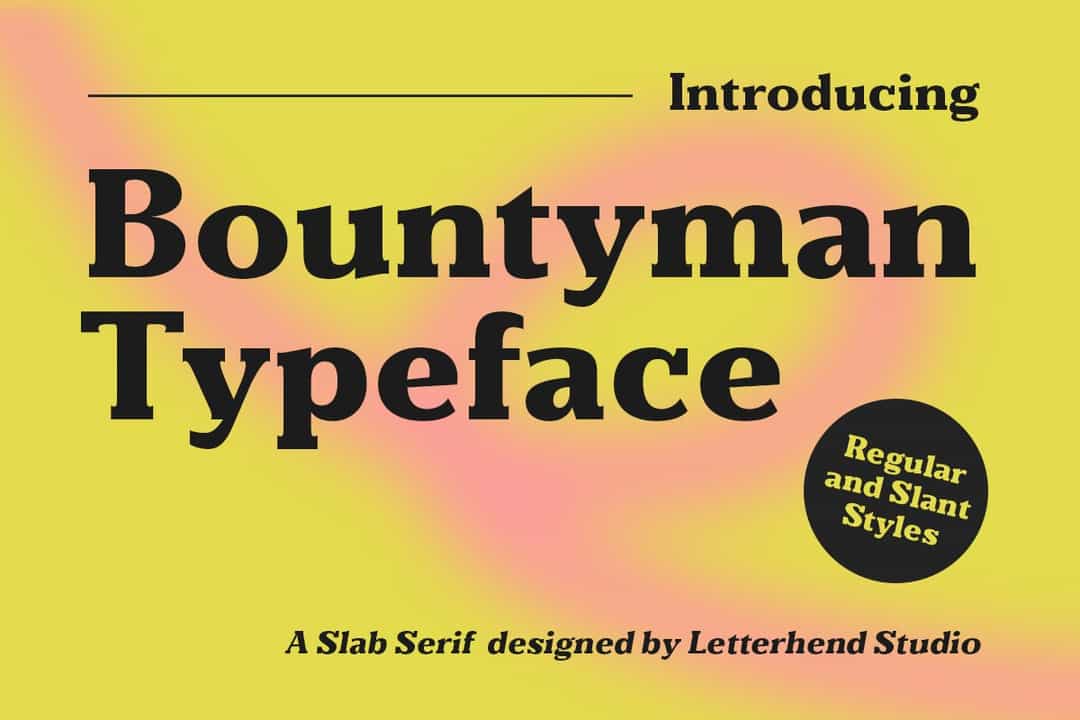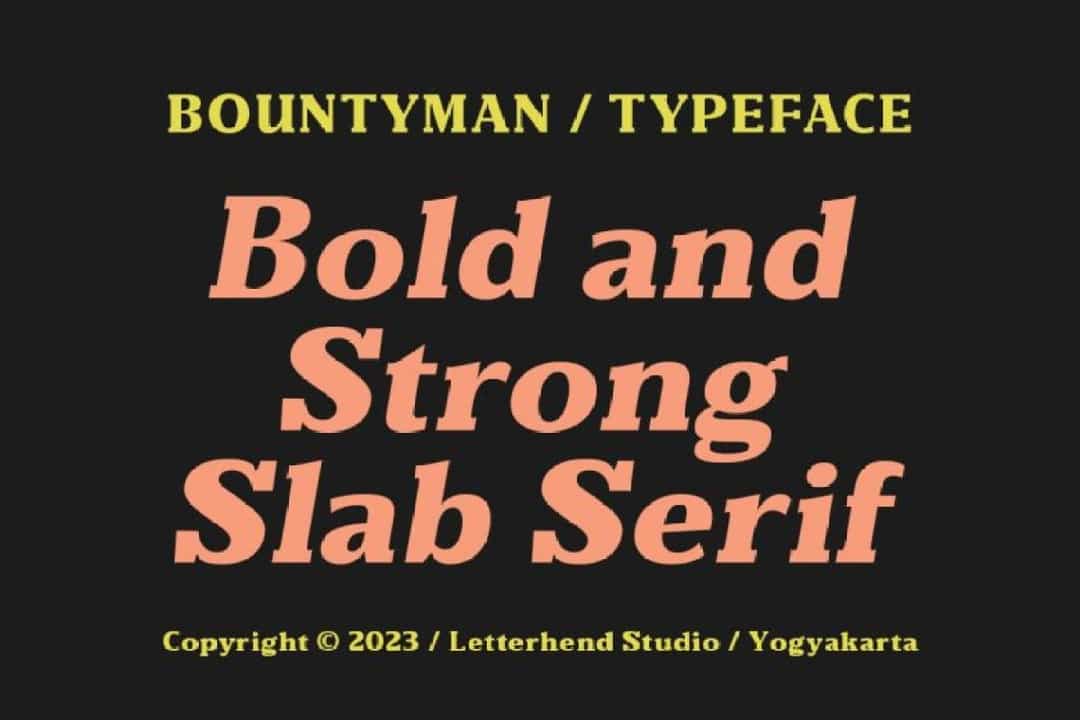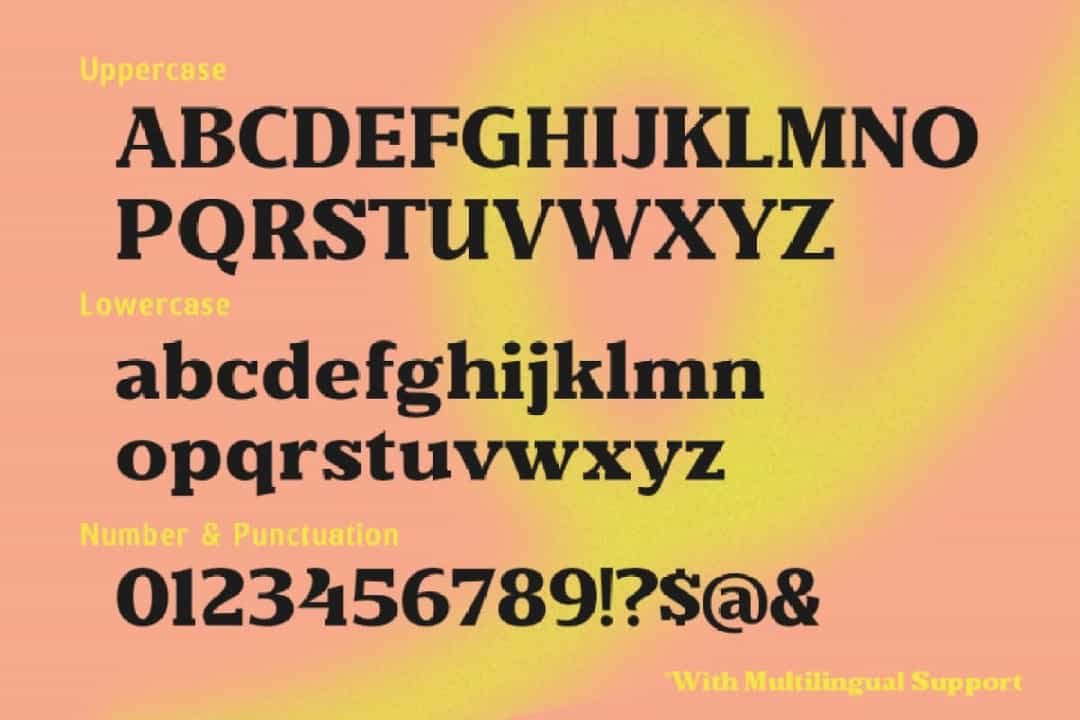
Bountyman is an elegant slab serif font designed with traditional influences in mind. Ideal for formal designs such as labels, invitations and magazines; as well as logos books; greeting, wedding cards packaging fashion makeup novel stationery labels etc. Bountyman can also be used commercially to achieve various commercial purposes.